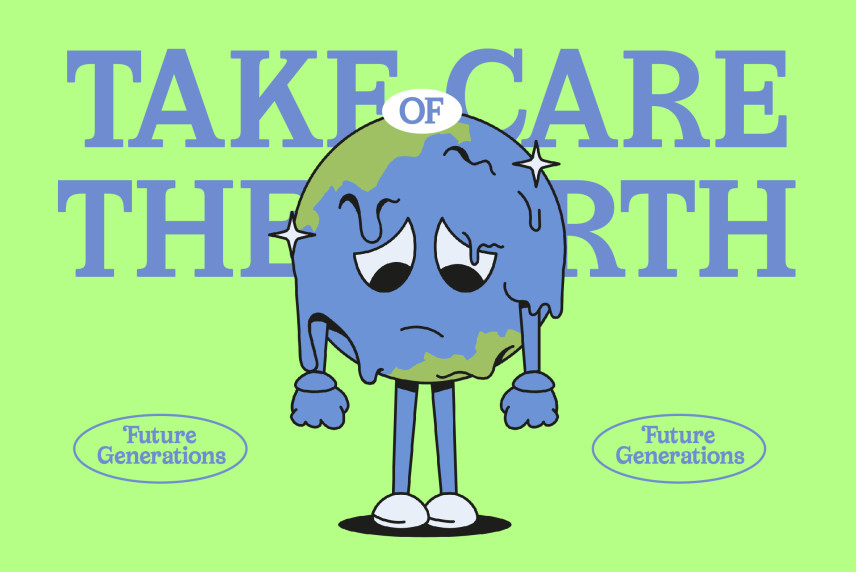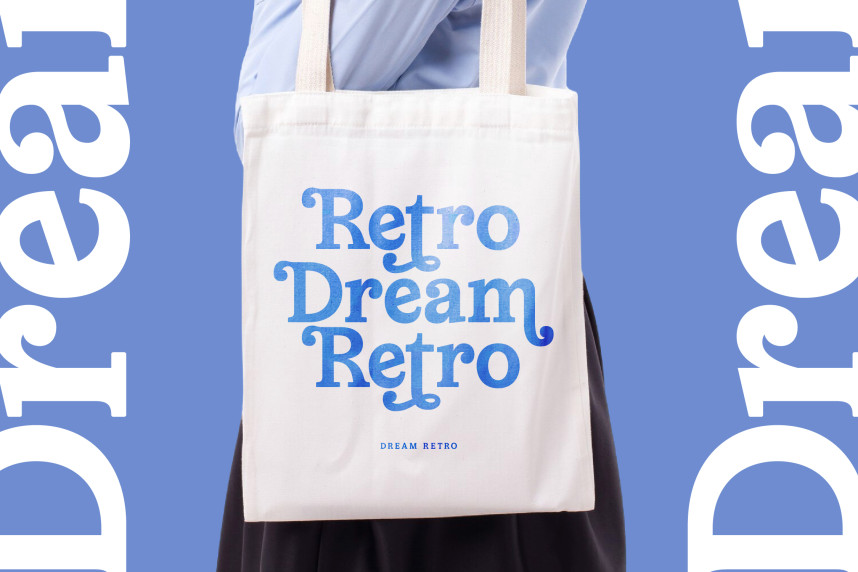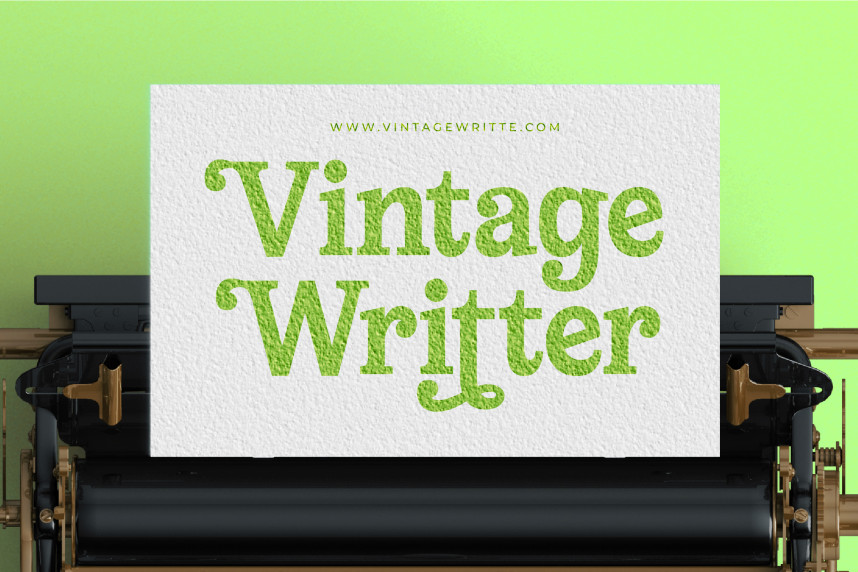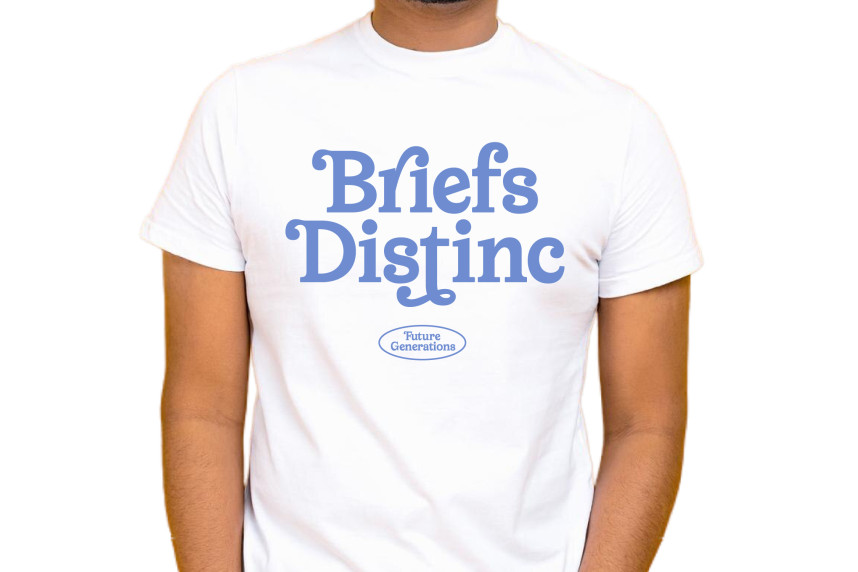
Meridi Rolitud Typeface is a modern alternate serif font that blends bold presence with playful decorative detail. Its strong letterforms, curved serifs, and dynamic alternates give it a character that feels expressive, stylish, and versatile. With 8 ligatures and 65 alternates, this typeface gives designers the flexibility to create unique, eye-catching typography that stands out in both print and digital formats.
This font is perfect for headline typography, where its bold structure and stylish alternates instantly grab attention across posters, banners, and editorial layouts. In branding and logo design, Meridi Rolitud conveys creativity and confidence, making it a great choice for modern businesses, lifestyle brands, and creative studios that want to be memorable and impactful. Its bold yet decorative details also make it excellent for packaging design, especially for food, beverages, or artisanal products where typography enhances brand appeal.
Meridi Rolitud thrives in advertising campaigns, event promotions, and social media graphics, where its expressive alternates allow for endless creativity and make every composition feel custom and dynamic. In editorial spreads, merchandise, and lifestyle projects, the font adds charm and personality, turning typography into a strong design feature.
With its multilingual support, Meridi Rolitud adapts seamlessly to global projects, making it a practical yet stylish font for international branding and creative work.
Ultimately, Meridi Rolitud is more than just a serif—it is a statement of modern creativity and playful expression. Whether used in headlines, branding, packaging, advertising, or digital content, it guarantees bold style, versatility, and unforgettable impact.